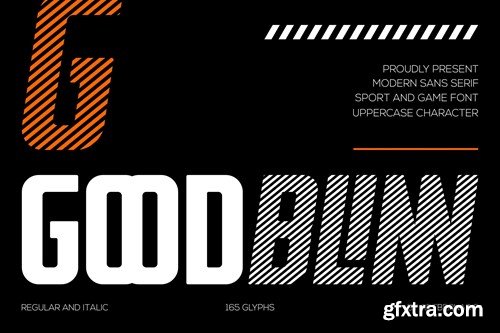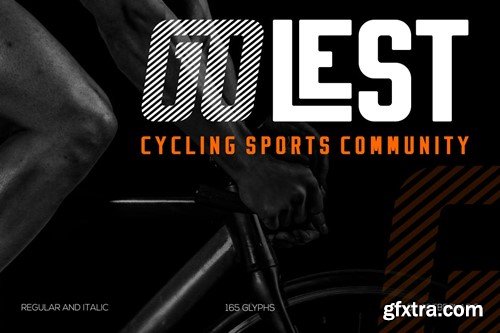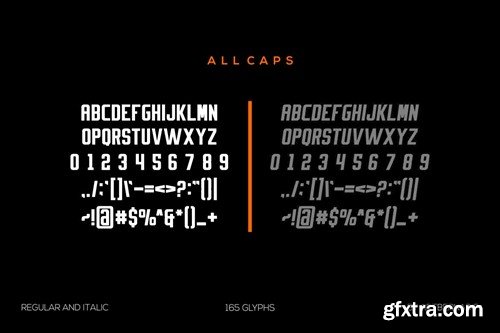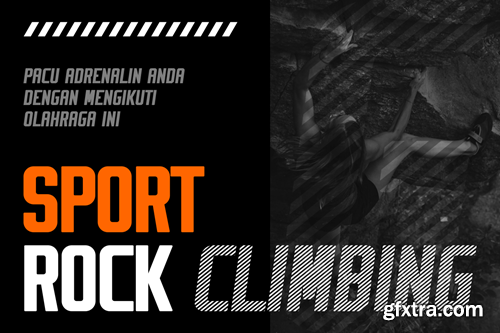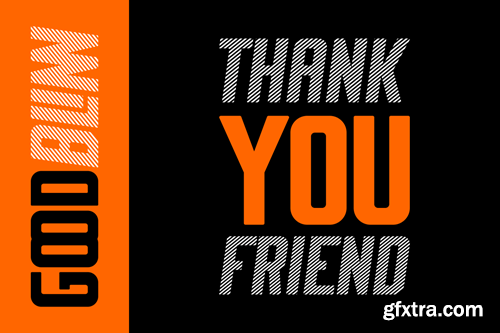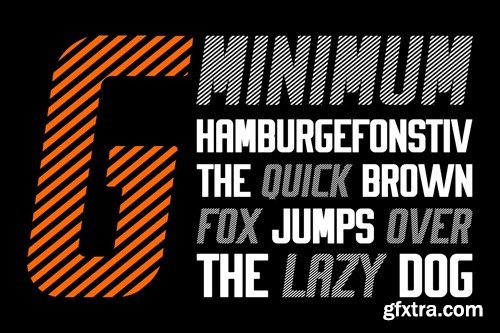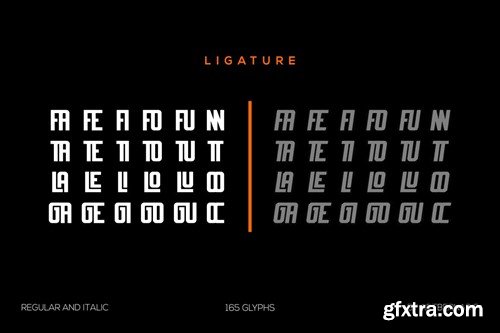
Goodblinn - 现代无衬线体运动和游戏字体 SL286J2
Goodblinn - Modern Sans Serif Sport and Game Font SL286J2
Goodblinn - Modern Sans Serif Sport and Game Font
Introducing our new product Goodblinn Font Modern Sans Serif Sport and Game Font
Goodblinn Font Modern Font is a Regular and Italic display font. The font is suitable for any branding project like logo, t-shirt printing, esport, and many more. outstanding in a wide range of contexts.
• Goodblinn Uppercase
• Goodblinn Ligature